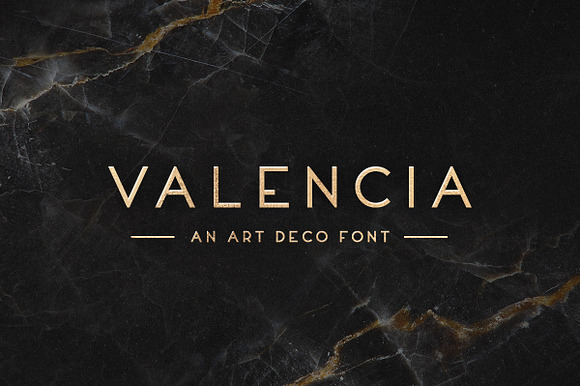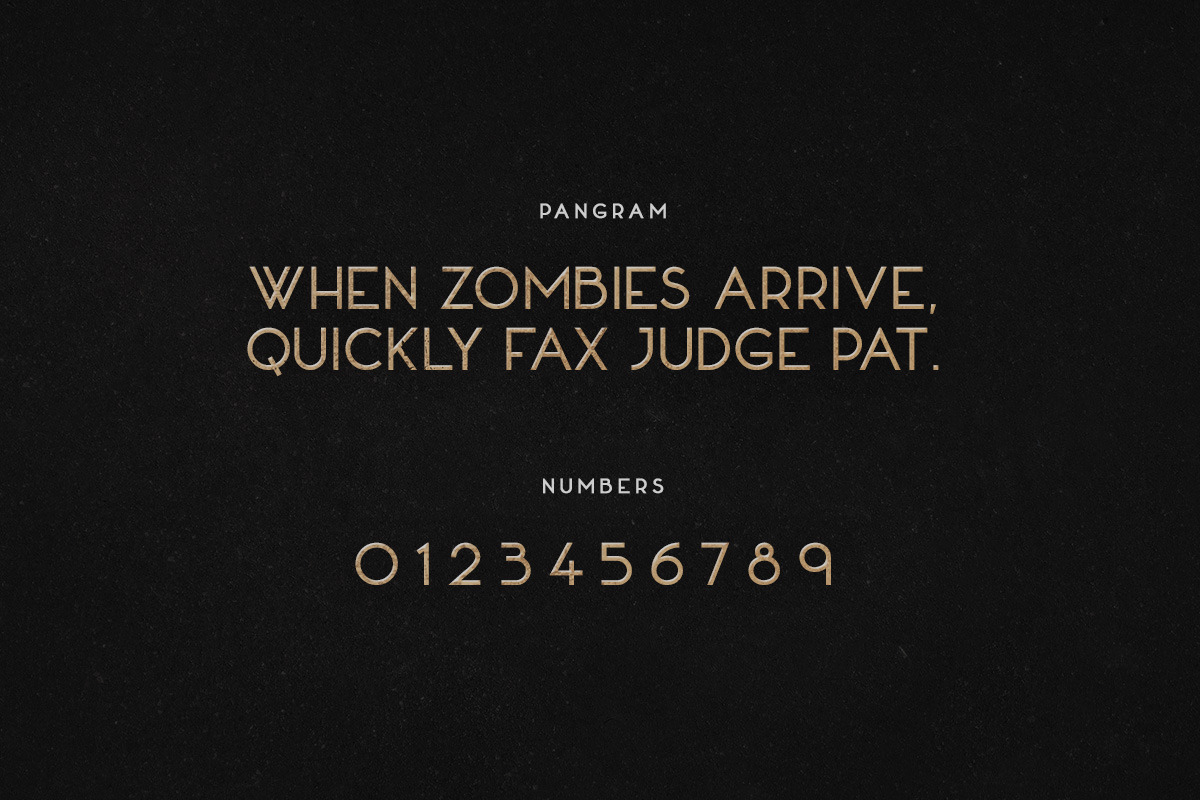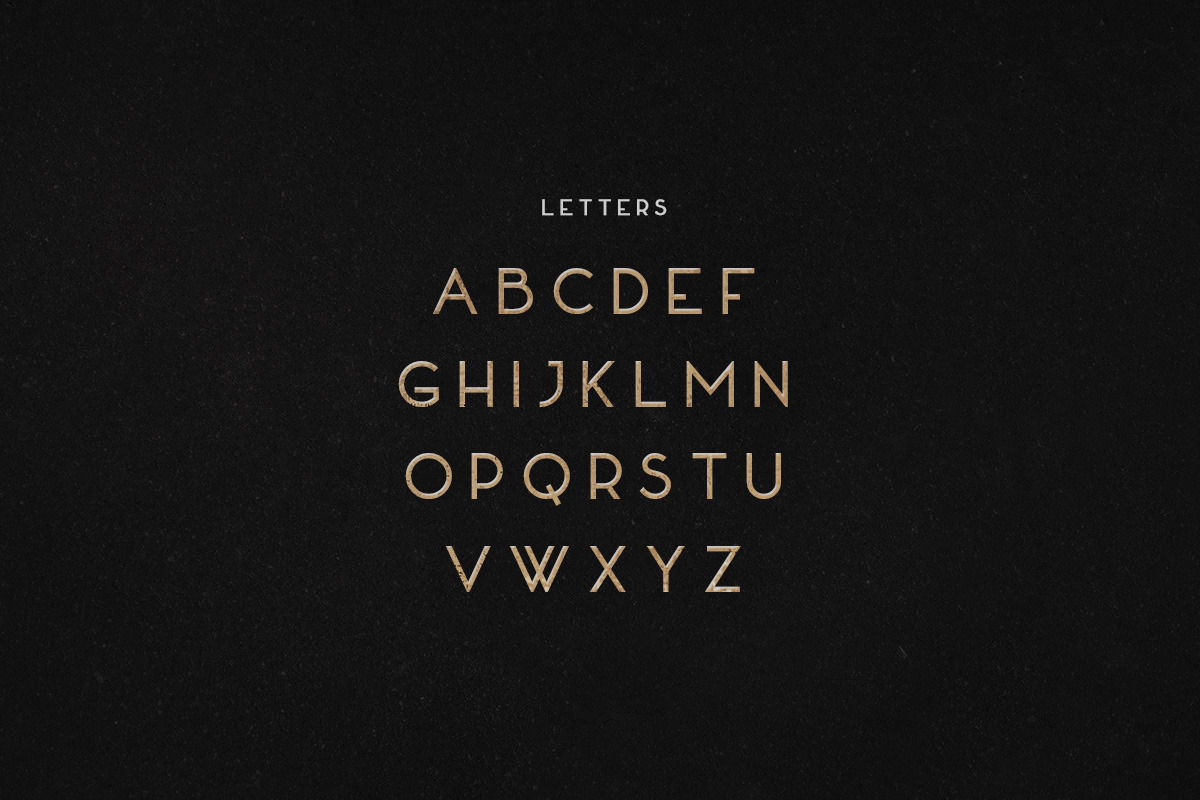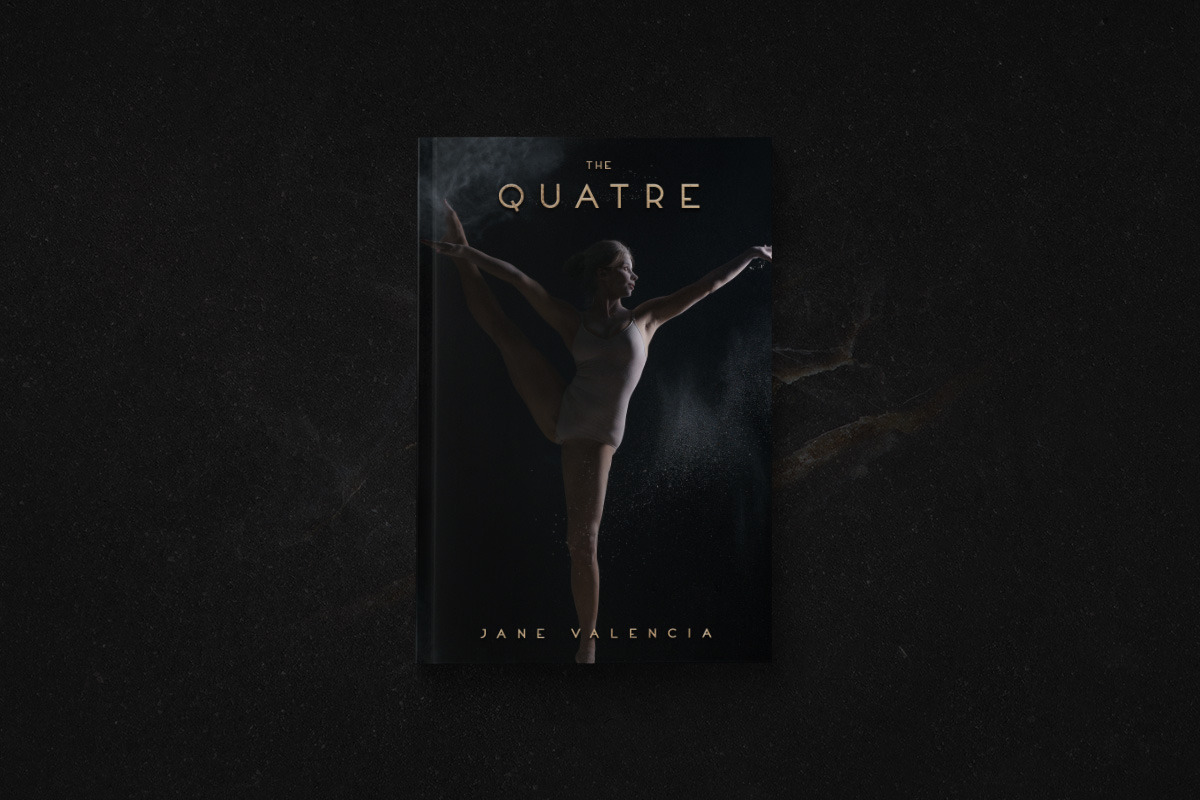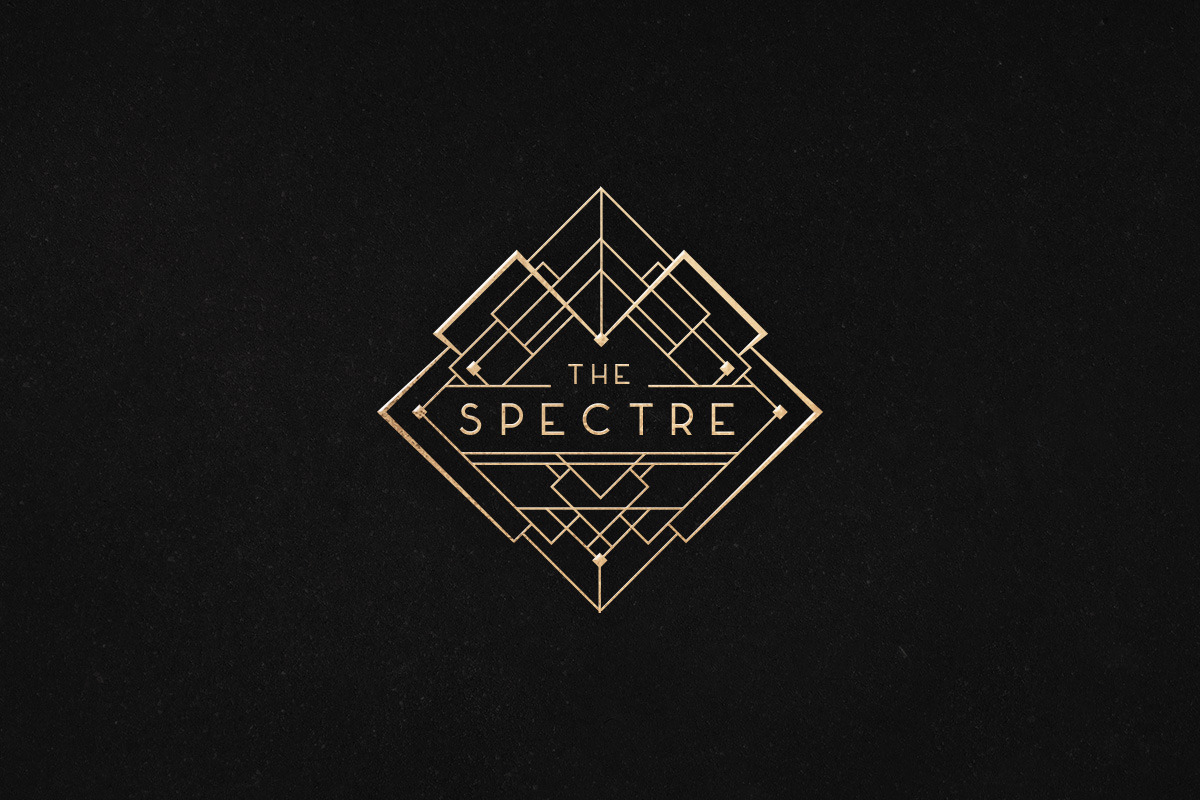
Valencia Typeface
Valencia is a geometric display font with uppercase multilingual letters, numbers and punctuation.
Valencia Typeface by Tugcu Design Co. fits naturally into Branding, posters, packaging, typography.